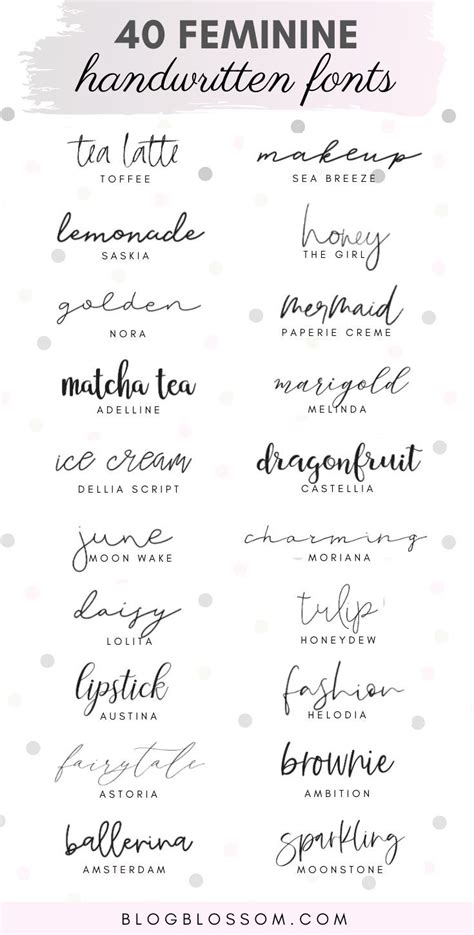
Tattoo Fonts Handwriting, For this man, the script with a few stylish lettering is the right choice. If the letters in your handwriting sample are written in.
Trash polka has become increasingly popular, consisting of text fonts, typewriting, and cursive handwriting overlapping an image and creating a bold statement. Download the font you used. It comes with 600 glyphs and lots of alternate characters for creating unique designs of your own.
However, there are a few tips to keep in mind when considering this tattoo style. Tattoo writing fonts by gender tattoo fonts for women. One font we like is tattoo girl. Cursive handwriting is a popular choice.
Handwritten font tattoos that you can filter by style, body part and size, and order by date or score. This font has a pretty appeal for ever letter, and works well in print work. However, there are a few tips to keep in mind when considering this tattoo style. Hasty tasty created by david kerkhoff is a typical font in.
Many women prefer a more feminine font or an elegant script. Find this pin and more on tattoo by jennifer golz. This handwriting tattoo is simple, yet one of the most meaningful and heartwarming tattoos ever! For this man, the script with a few stylish lettering is the right choice. Our free tattoo font creator online gives you an inside.